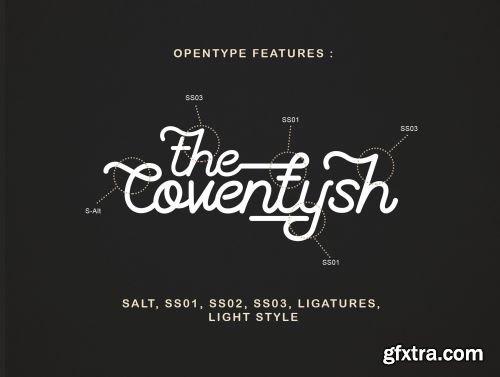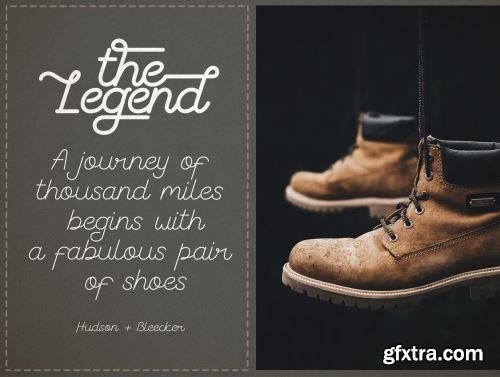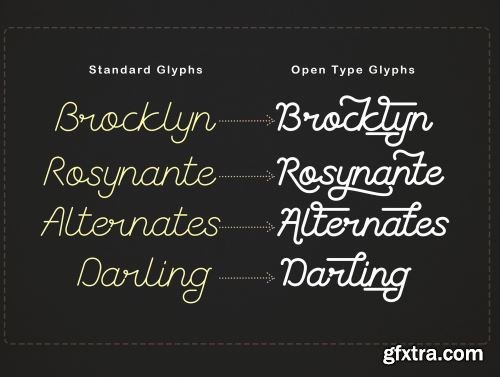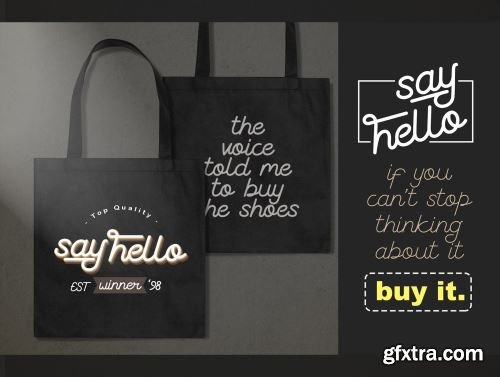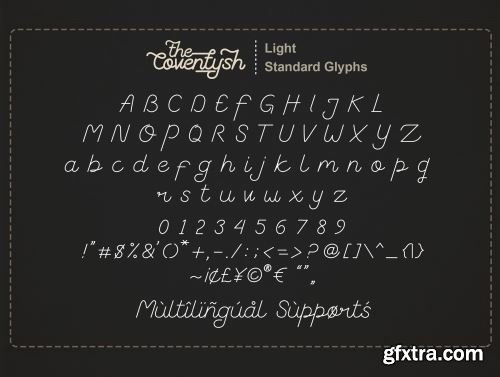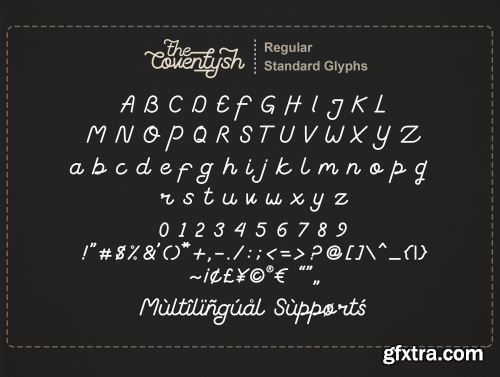
The Coventysh – Monoline Script Font Ui8.net
The Coventysh is a beautiful and Elegant Mono-Line Script Font, Available 2 weight styles are perfect for Logo Design, Branding, Clothing Design, Signage, Poster, Wedding Invitations and so much more! My goal for this font was to create an easy-to-read Monoline Font Script that serves a variety of purposes.